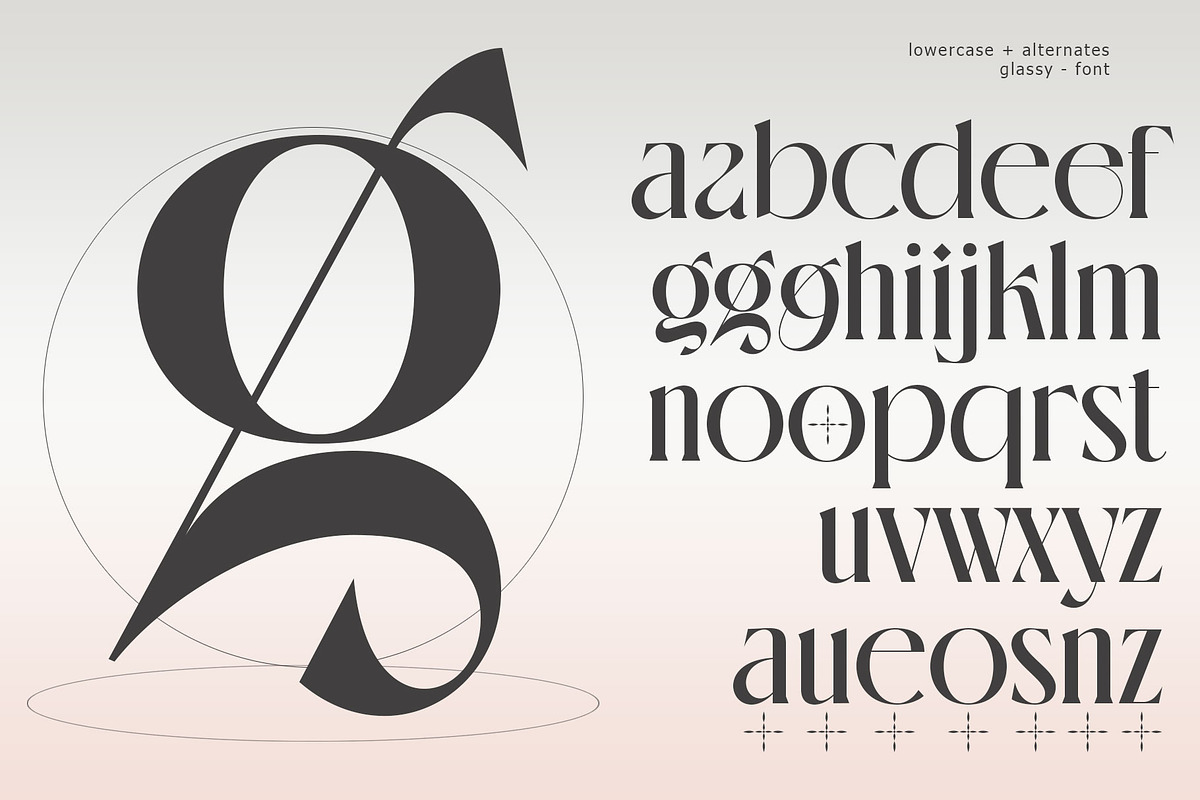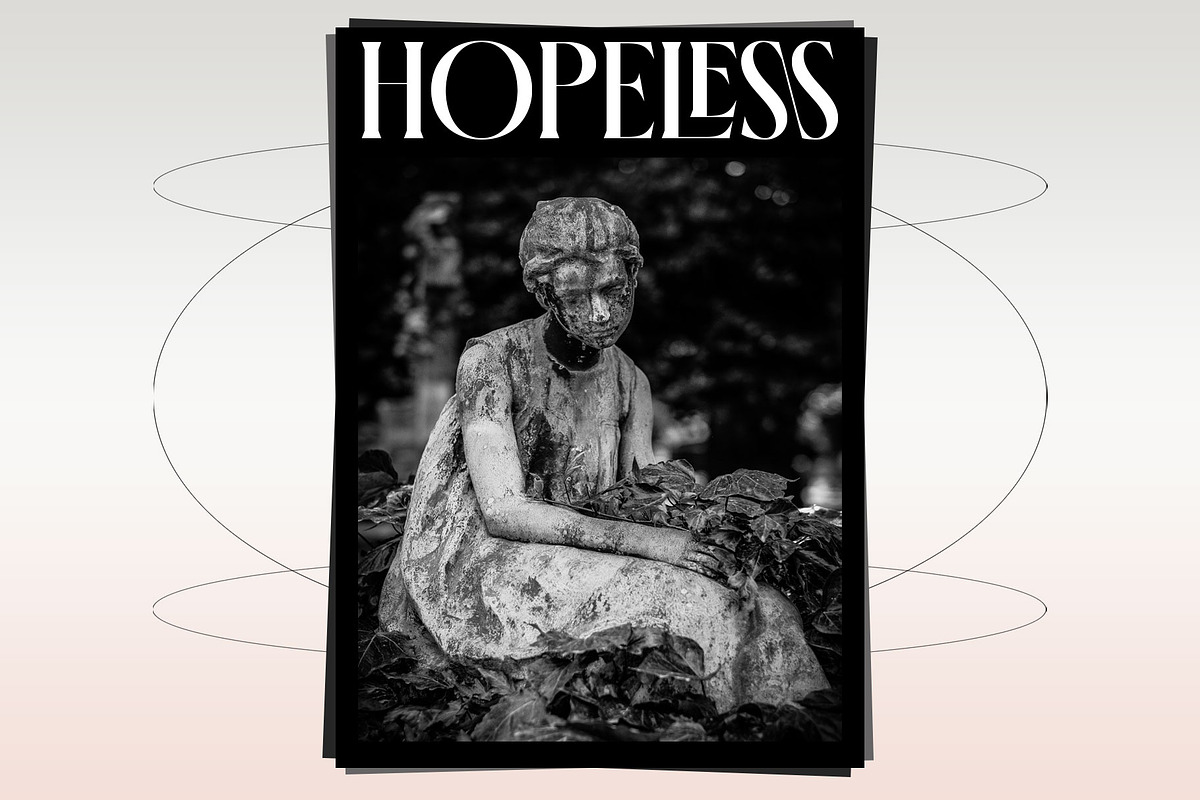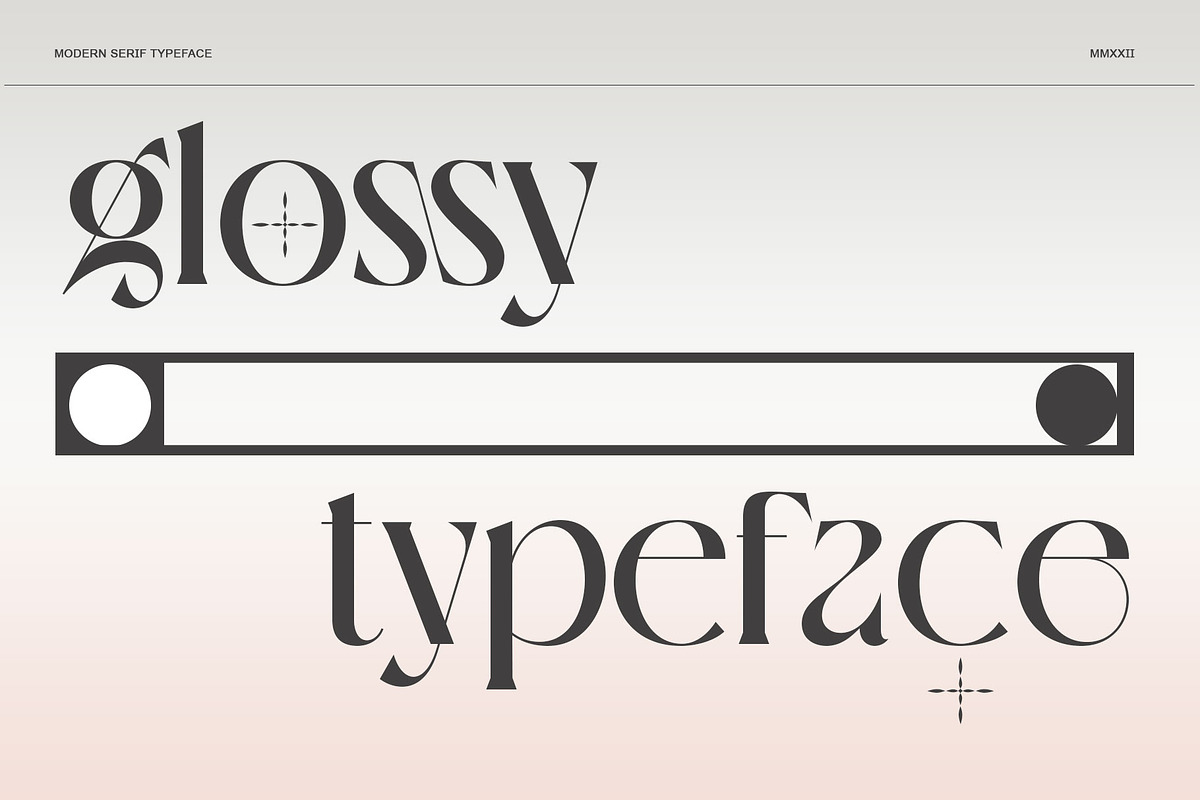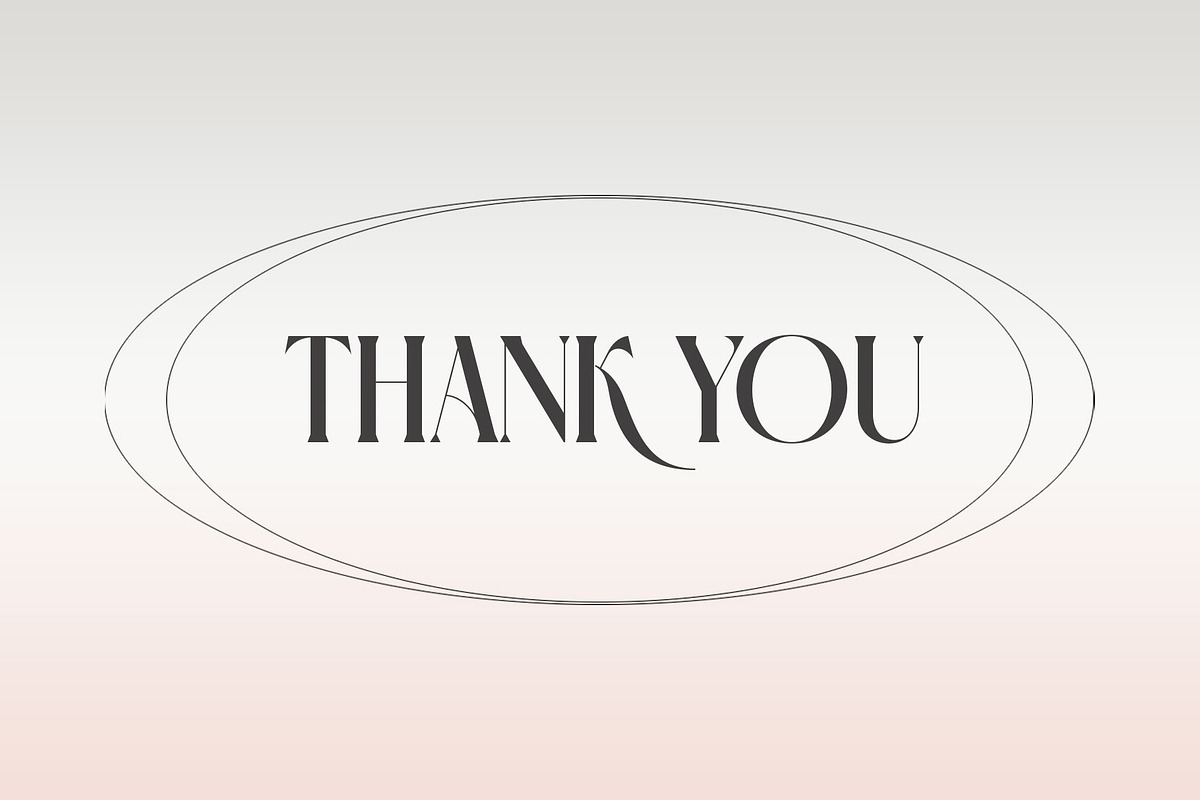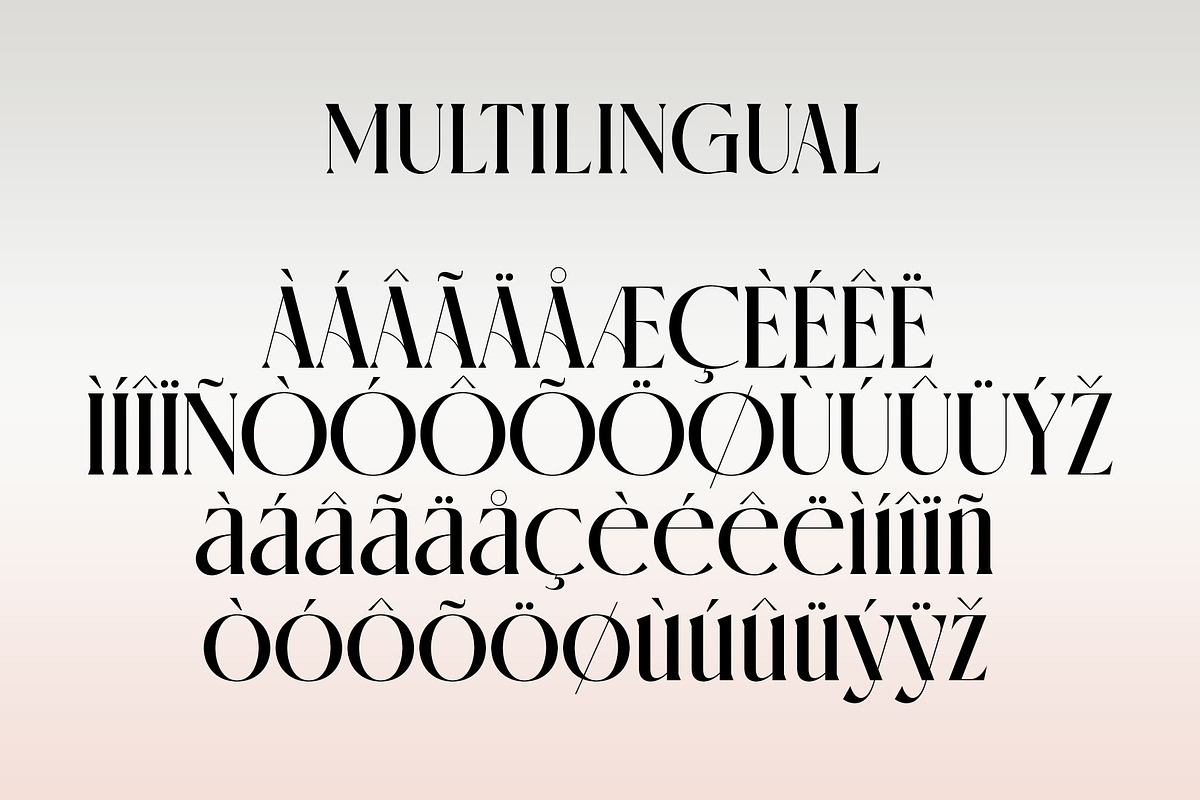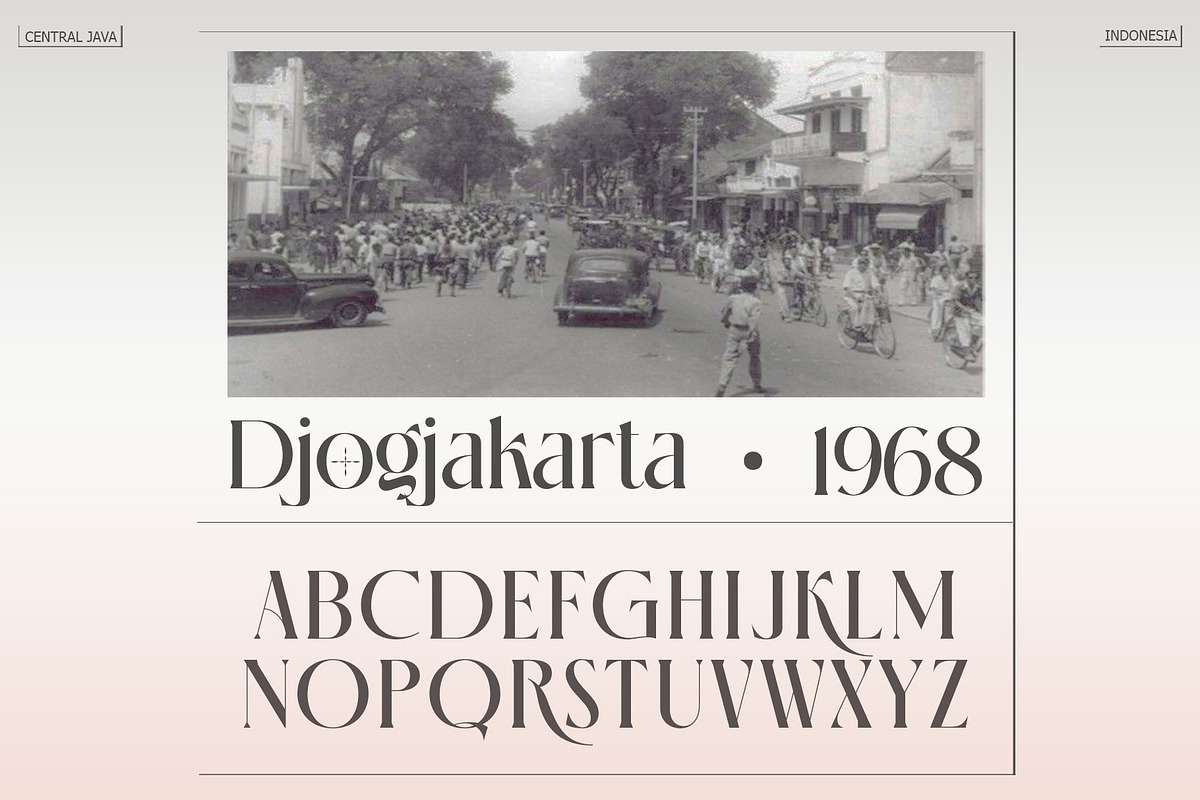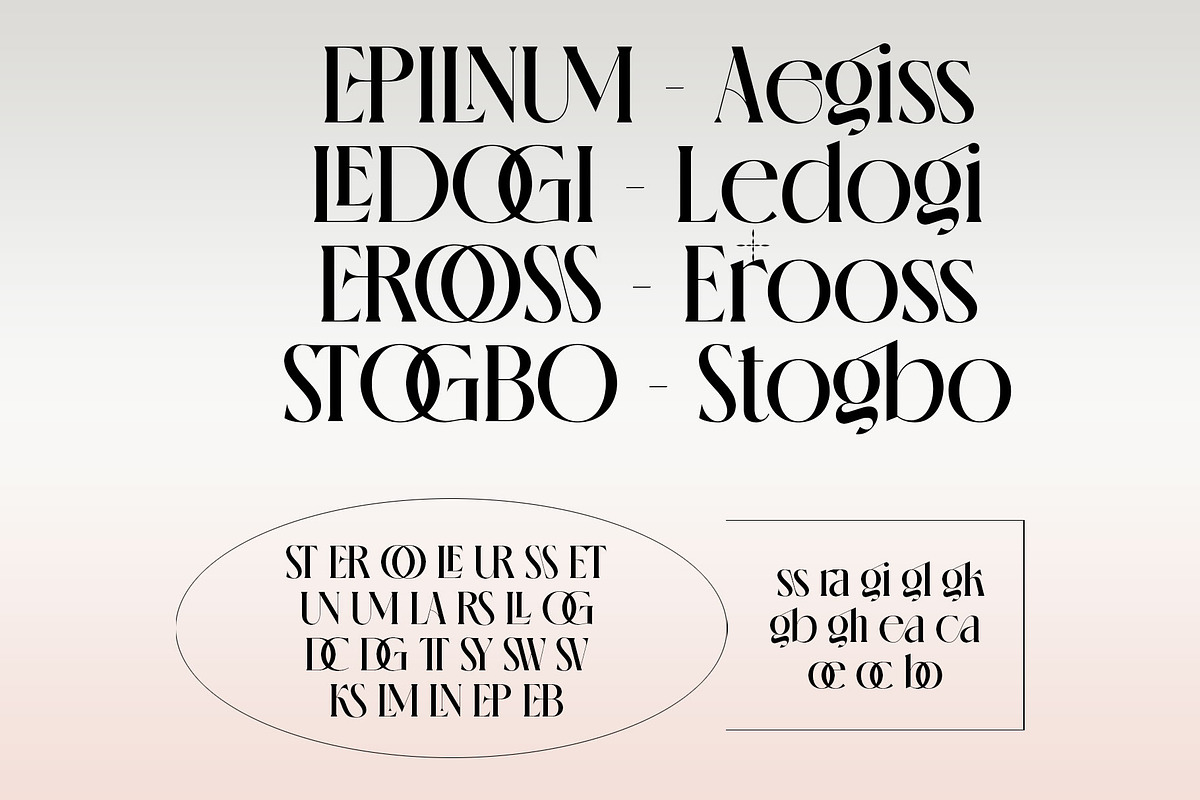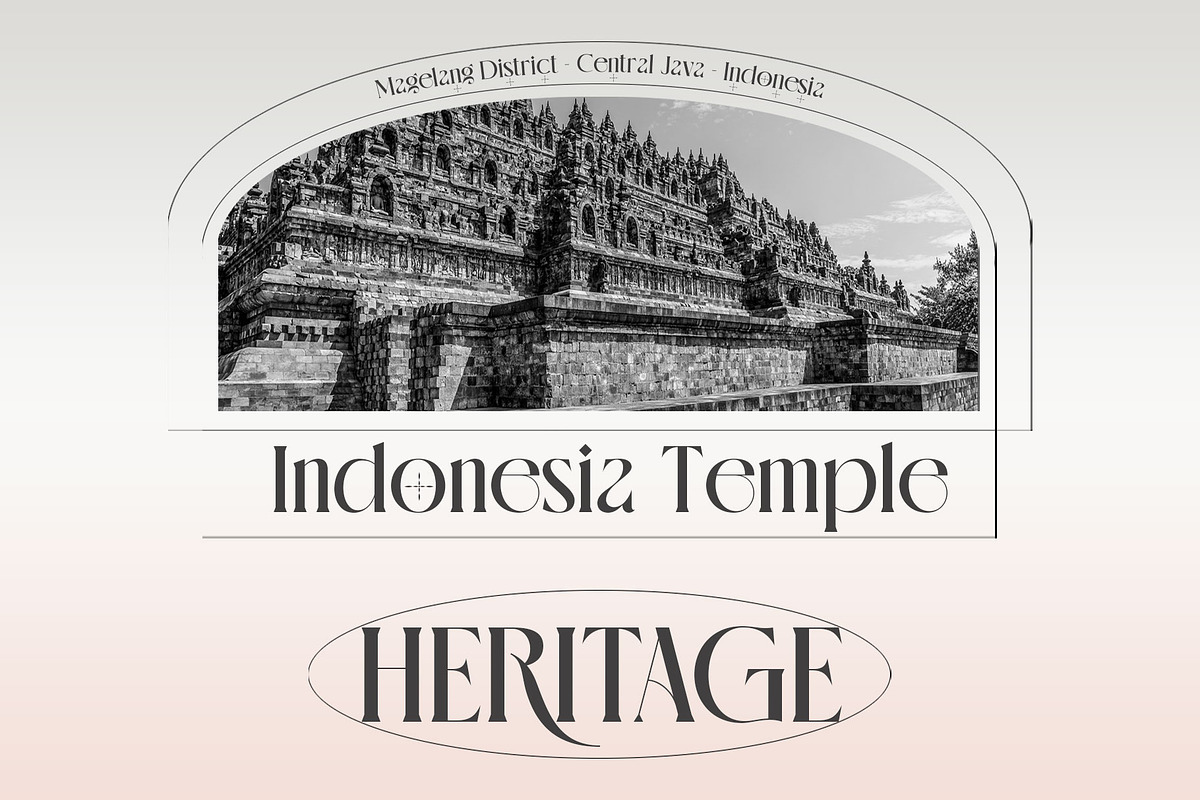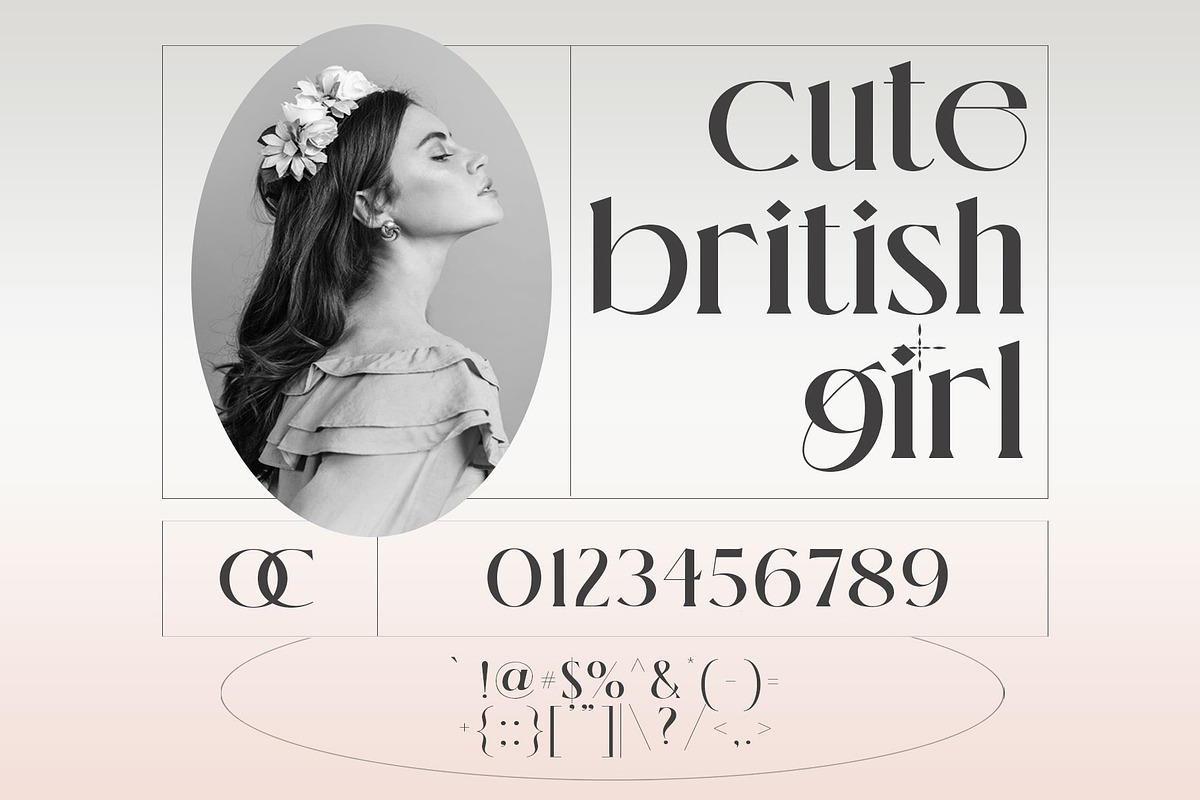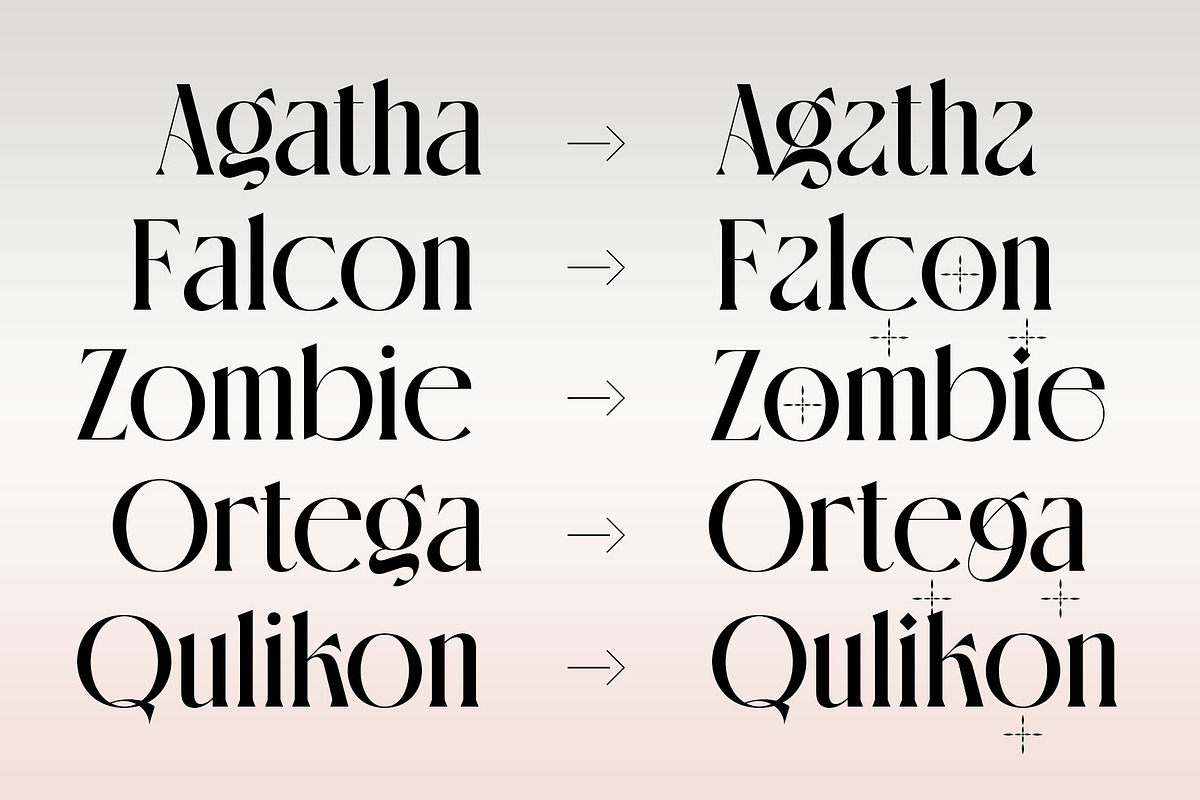
glossy - a modern serif
glossy is a special vintage modern style font. Made with accurate accuracy. With alternative characters and ligatures that make your work very special. It is perfect for branding design, logo, greeting cards, headline packaging. and other designs. Immediately use our fonts to make your work even more amazing.